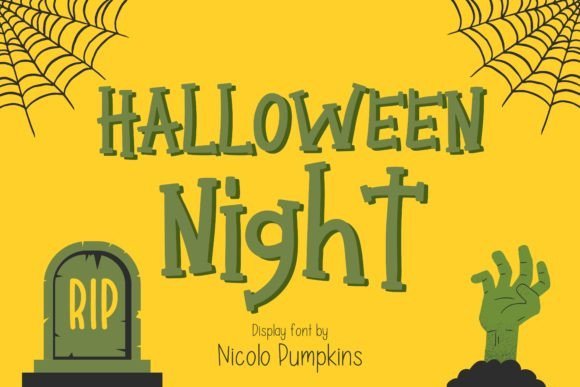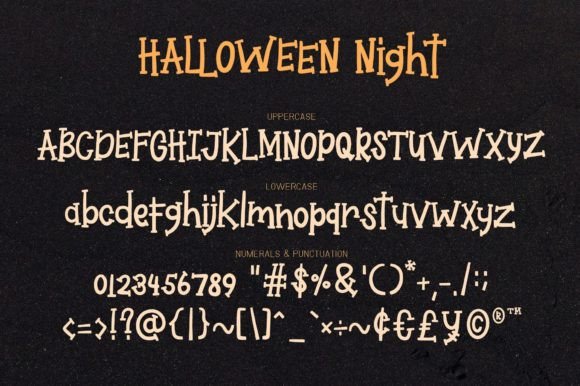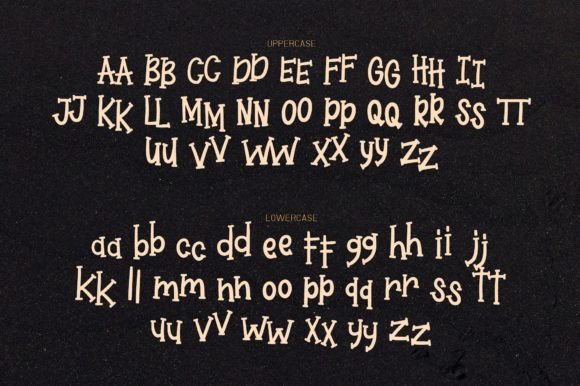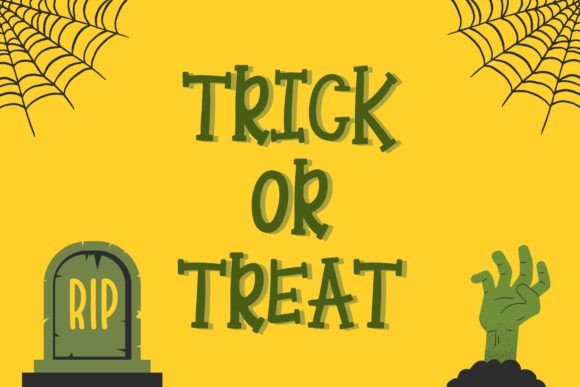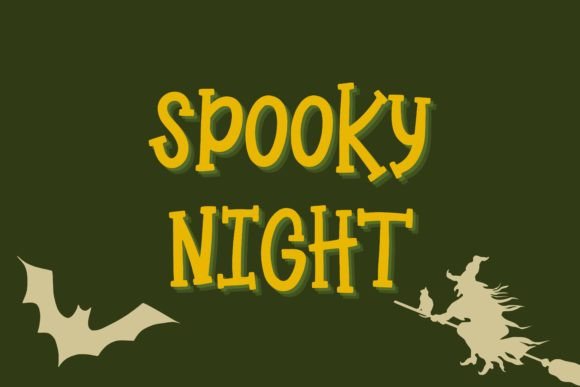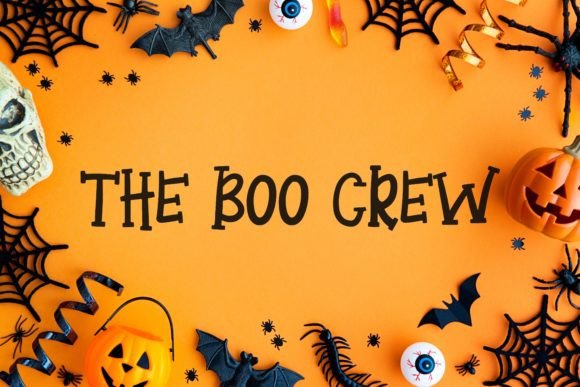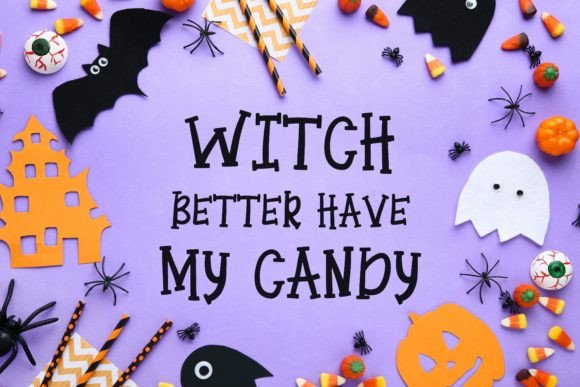
Get Ready to Cast a Spell with the Halloween Night Font
As a designer, have you ever found yourself stuck on a creative project, searching for that perfect font to bring your vision to life? Maybe it’s a spooky Halloween invitation, a haunted house logo, or a set of eerie lettering stickers. Whatever it is, the right font can make all the difference.
That’s where the Halloween Night Font comes in – a delightful and playful handwritten font that’s sure to add a touch of magic to any project. Perfect for creating Halloween quotes, logos, or lettering products, this font is a must-have for designers looking to create something truly special. With its cute and spooky design, the Halloween Night Font is sure to cast a spell on your audience.
Halloween Night Font Key Features
- Font Family: Halloween Night is a unique, handwritten font.
- Size: The font is available in a single weight, but it can be easily scaled up or down to suit various design needs.
- Unique Characteristics: Distinctive handwritten style, spooky and eerie feel, perfect for Halloween-themed designs, invitations, and party materials.
Halloween Night Font Review
Overall, I was excited to dive into the Halloween Night Font, as its spooky theme caught my attention. Upon closer inspection, here are my thoughts on what works well and what doesn’t.
- The font’s creepy and mysterious vibe is perfect for Halloween-themed projects.
- The variety of glyphs and symbols adds an extra layer of depth to the font.
- The font is highly customizable, allowing users to adjust the size, color, and spacing to suit their needs.
- The font may be too gimmicky for non-Halloween projects, which could limit its versatility.
- The bold and italic styles could be more detailed, as they appear somewhat pixelated at larger sizes.
- The font’s complexity might make it challenging to use for beginners or those with limited design experience.
While the Halloween Night Font has its drawbacks, it’s still a solid choice for designers looking to add a spooky touch to their projects. Its unique aesthetic and customization options make it a great fit for the right project. However, it may not be the best fit for every designer or project.
To get the most out of the Halloween Night Font, try using it in combination with other spooky elements, such as ghosts, bats, or jack-o-lanterns. You can also use it to create a sense of mystery and intrigue by using it in a bold, eye-catching font.
The Halloween Night Font is perfect for:
- Halloween party invitations
- Spooky social media posts
- Haunted house signage
- Creepy greeting cards